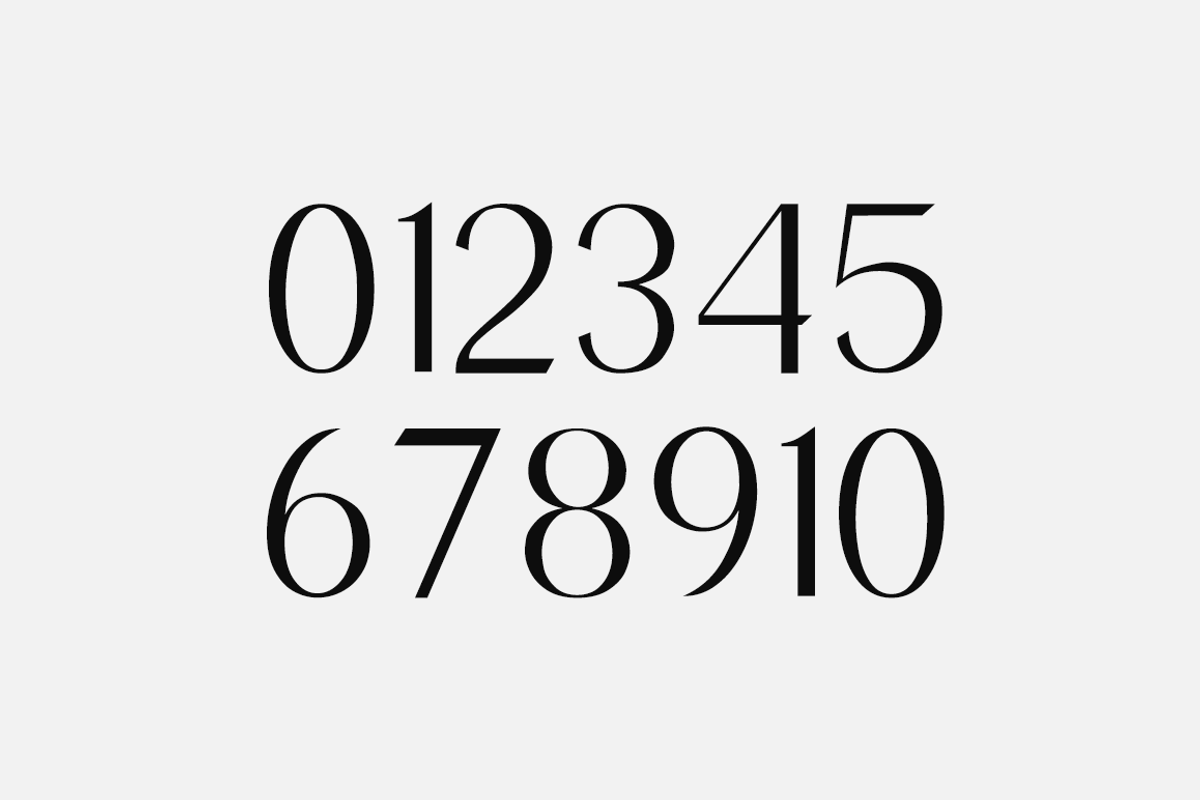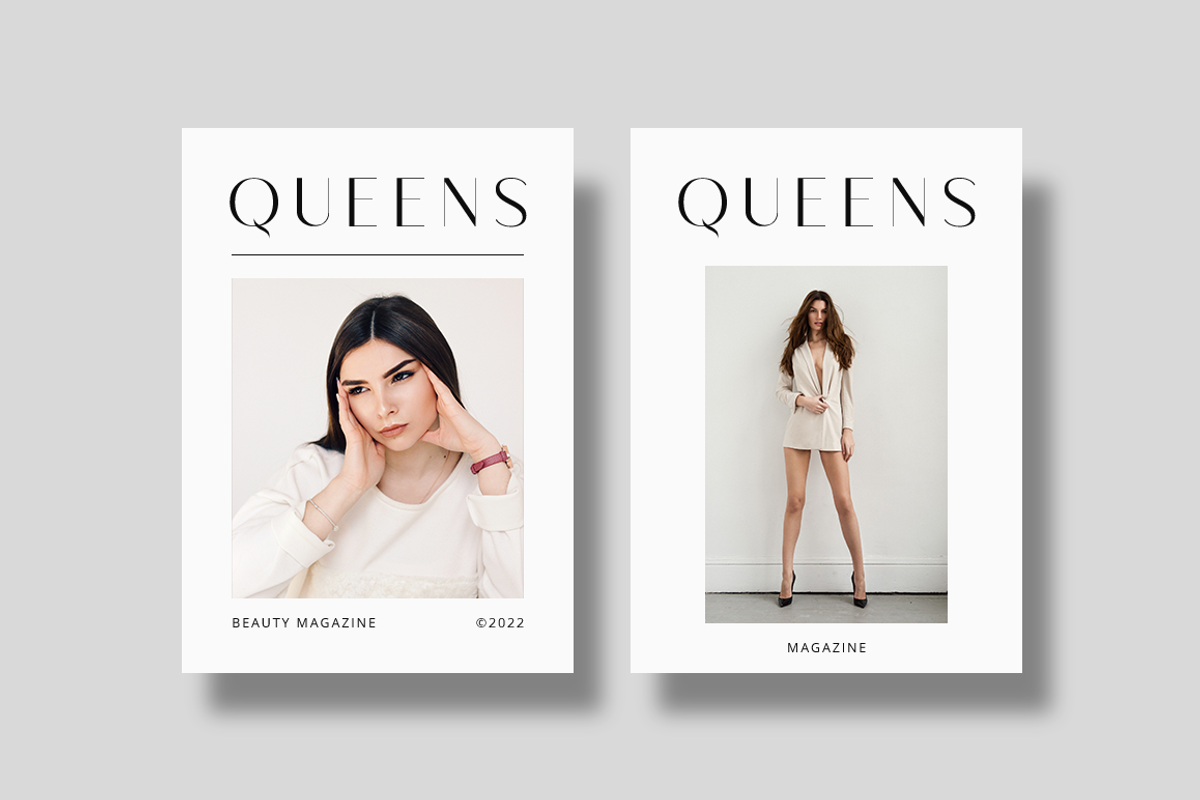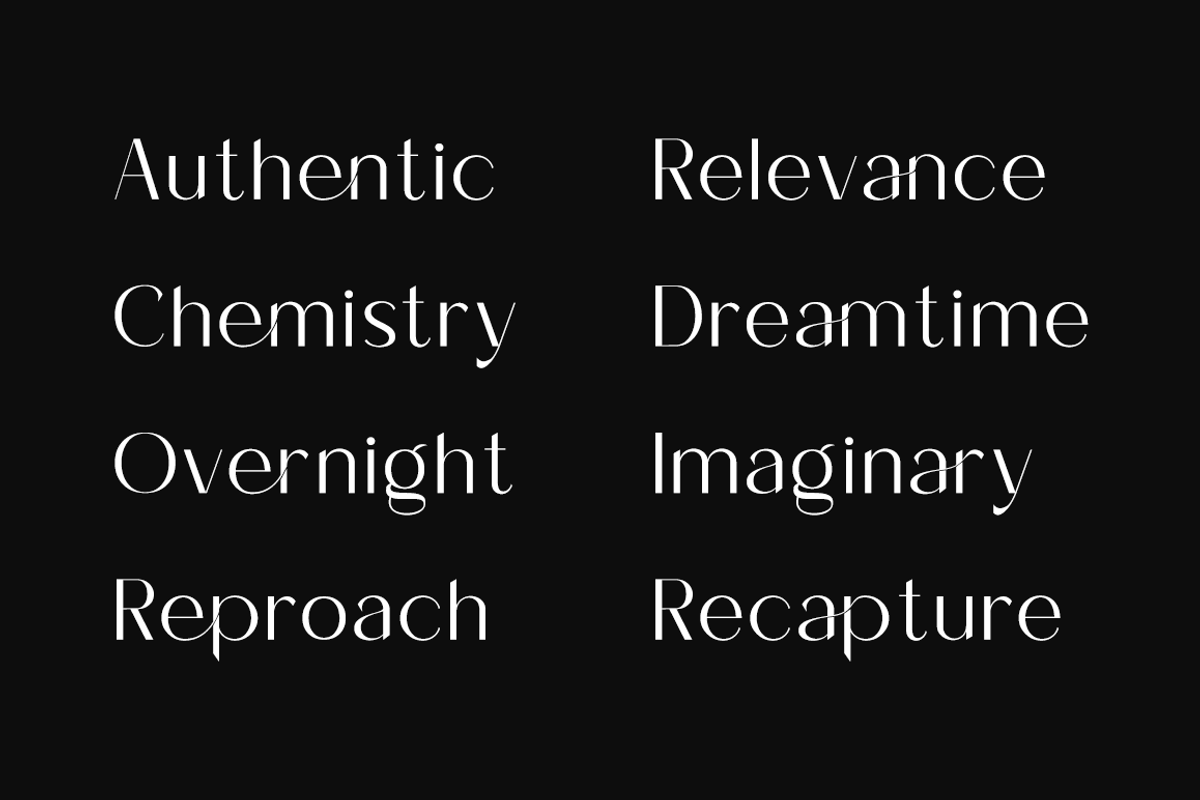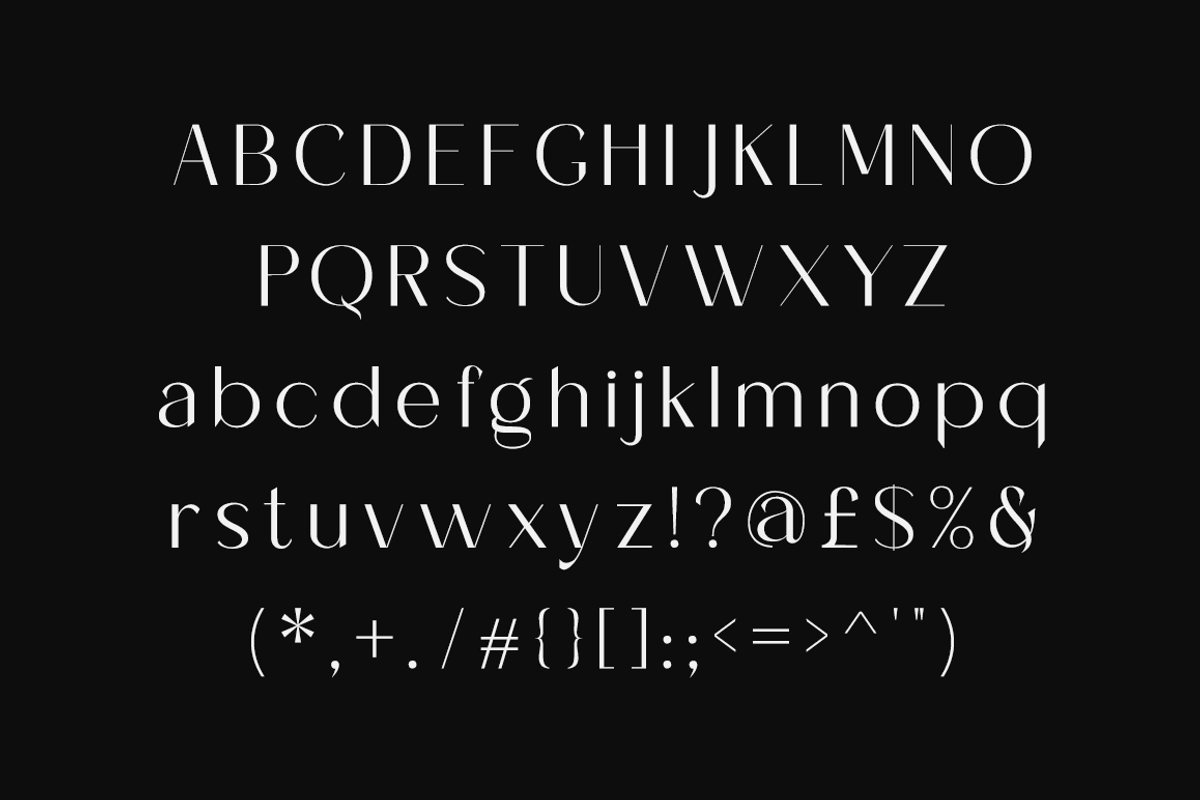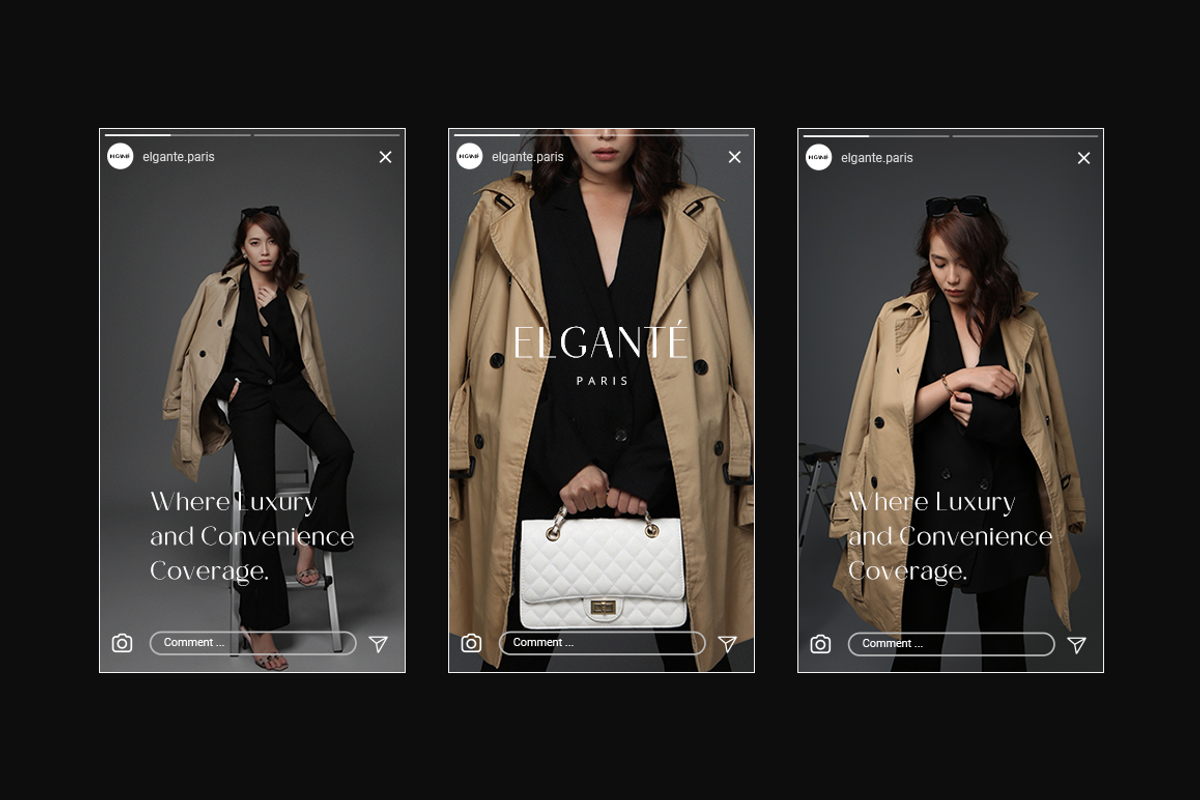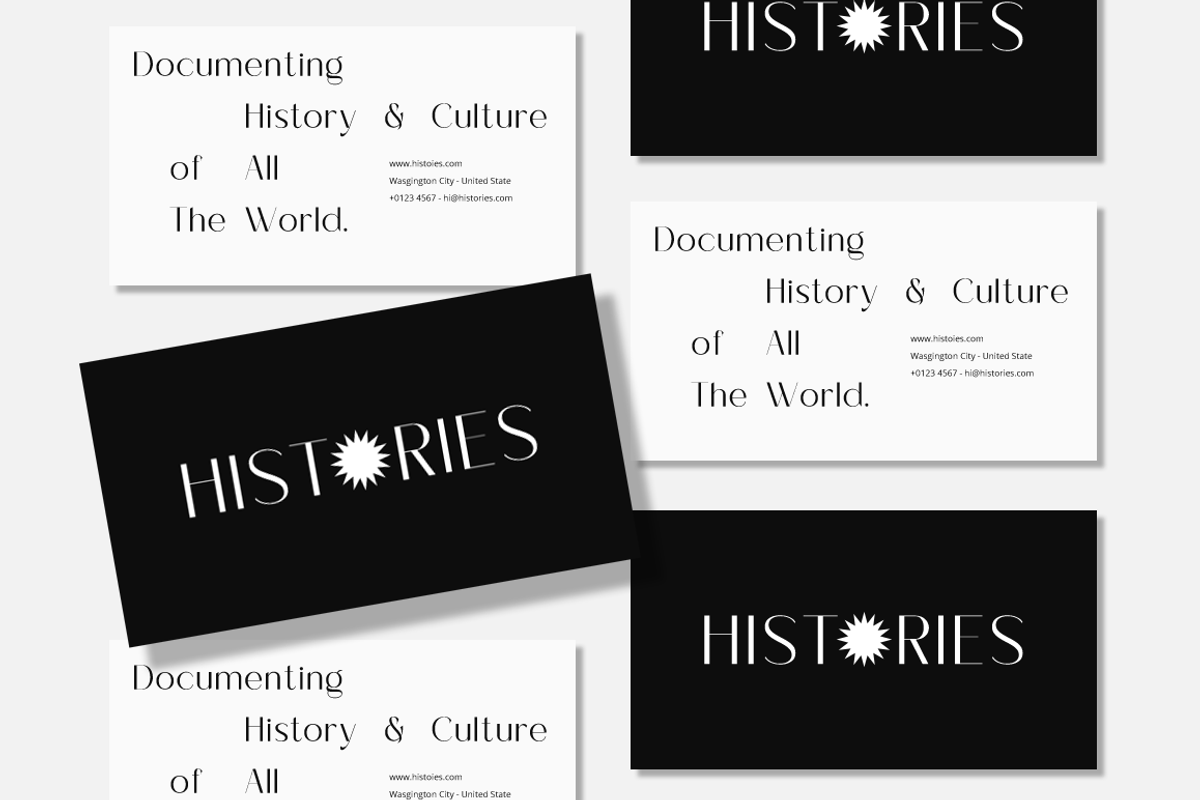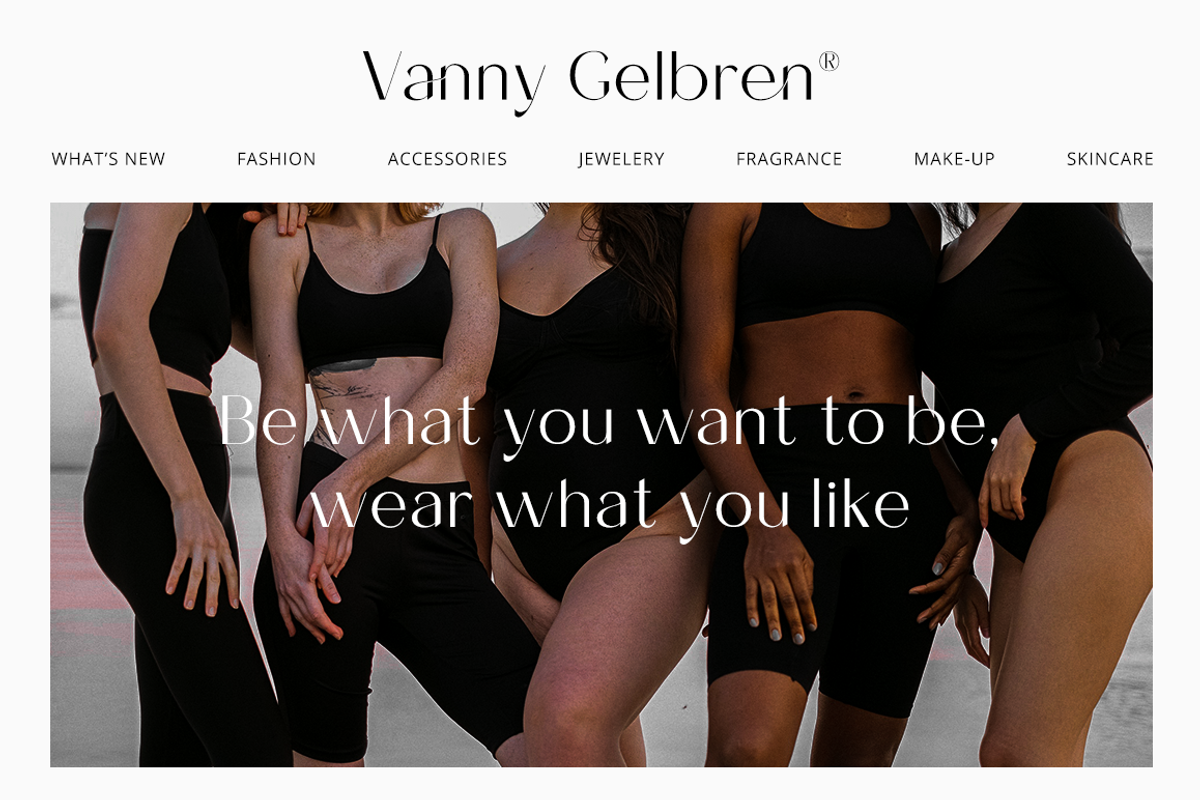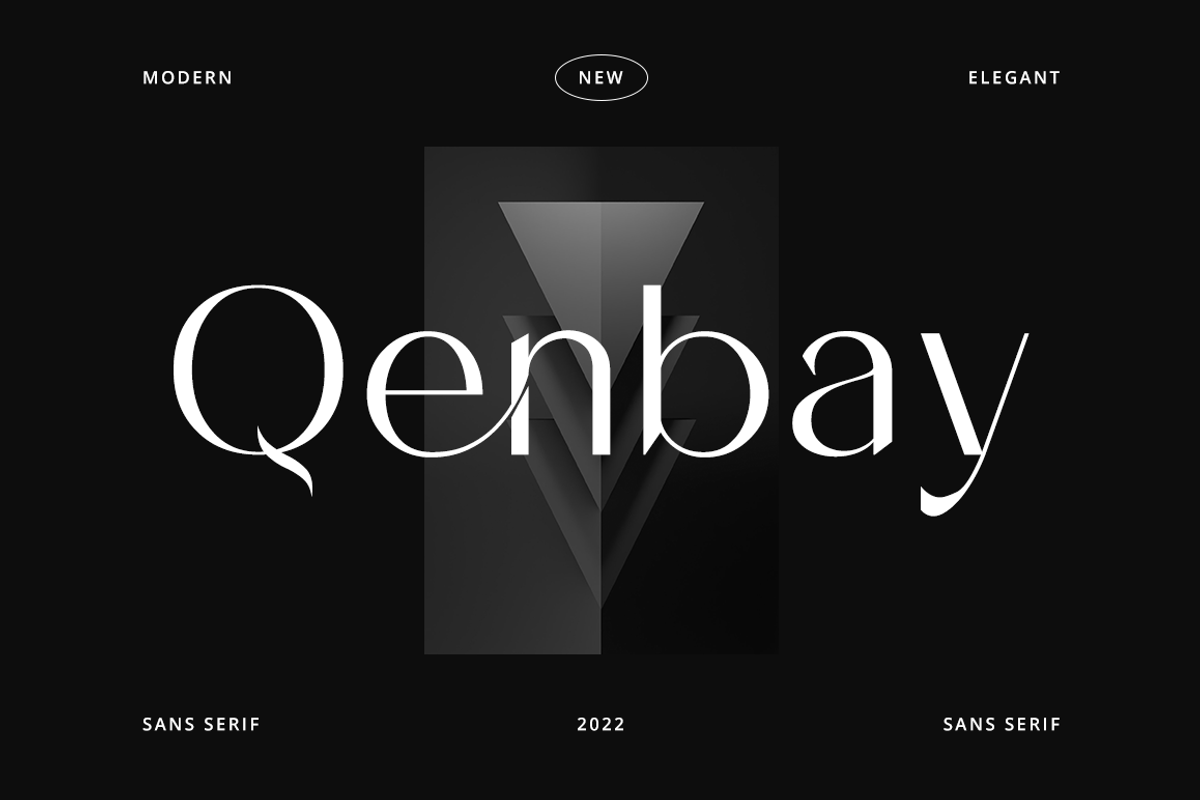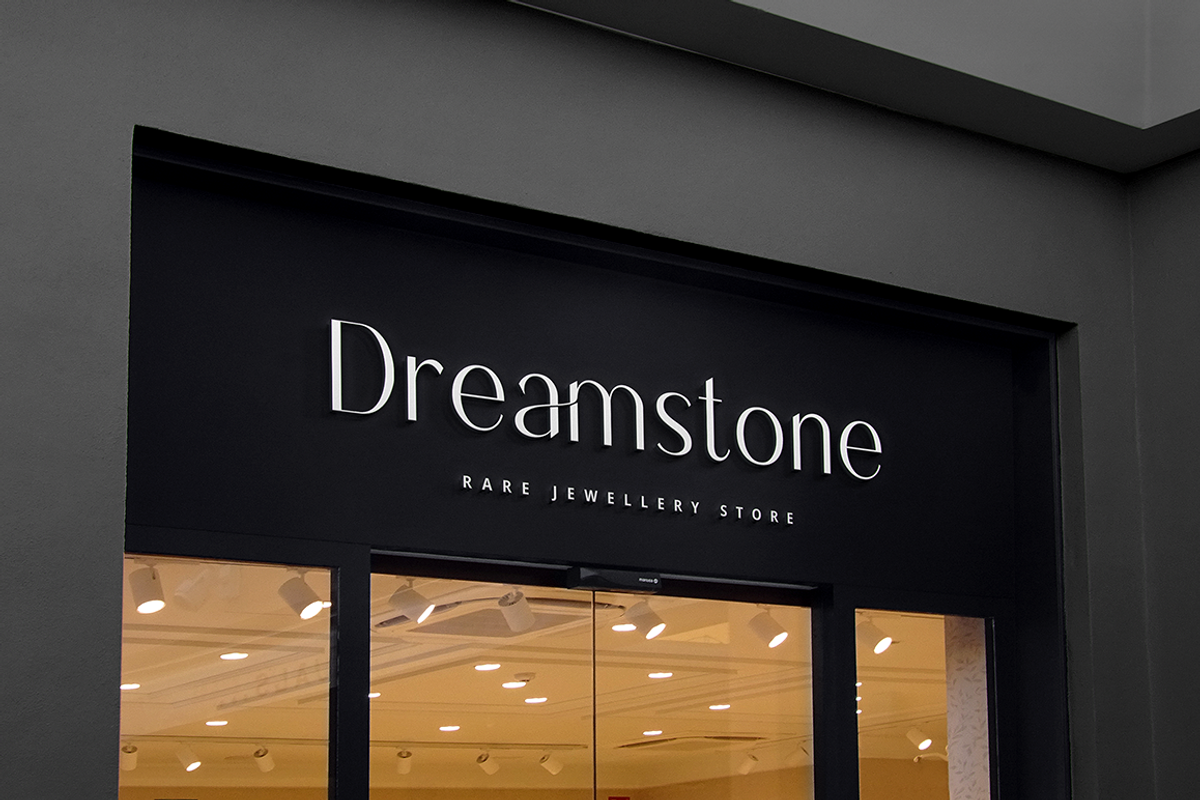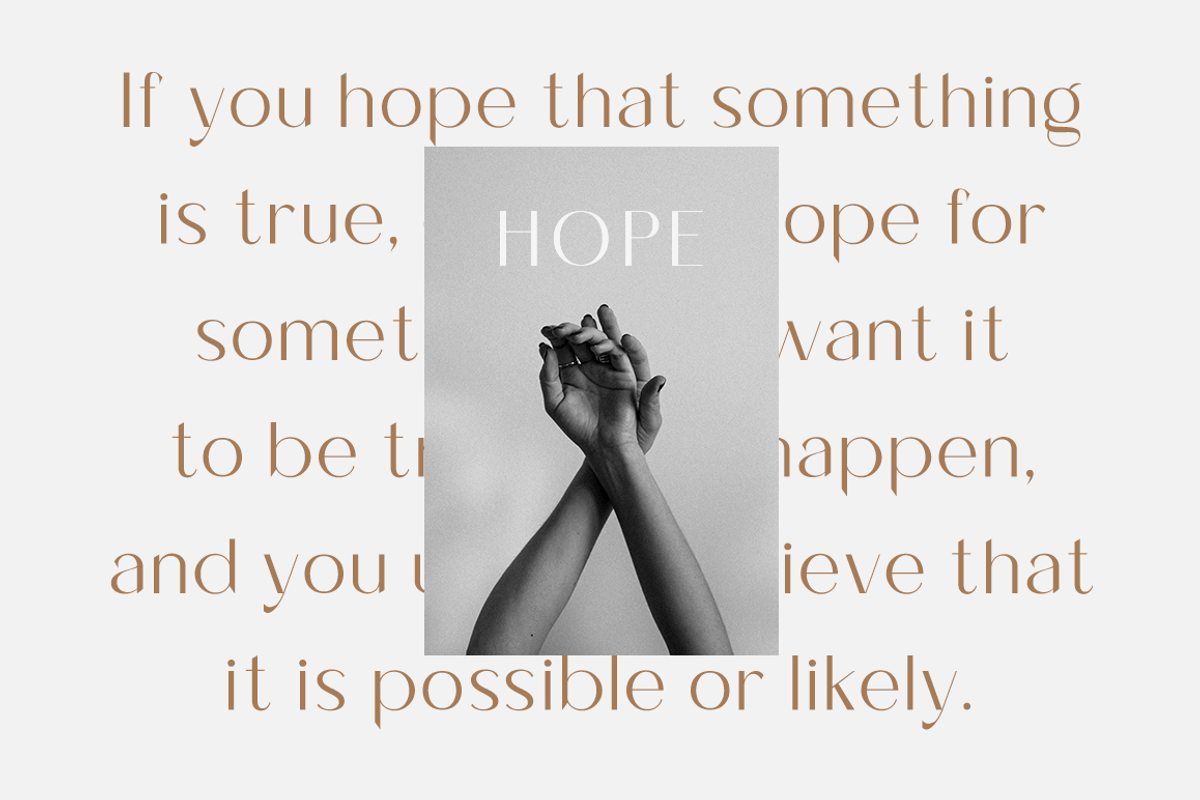
Qenbay - Business Font
Qenbay is a minimal and modern sans serif font. It can easily be matched to an incredibly large set of projects, so add it to your creative ideas, and notice how it makes them stand out!